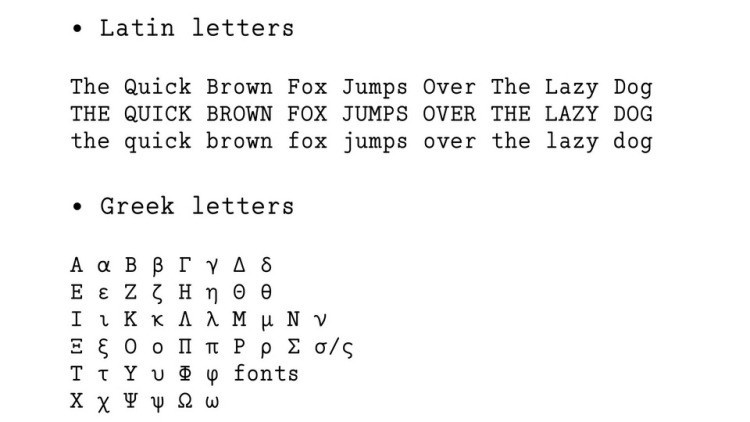
Photonico Code Font
Photonico Code Font is a monospace, slab-serif style font designed for coding, which supports Latin, Greek letters, and mathematical notations.
It is developed from the file of Fira Code, and inherits its programming ligatures and HiDPI support.